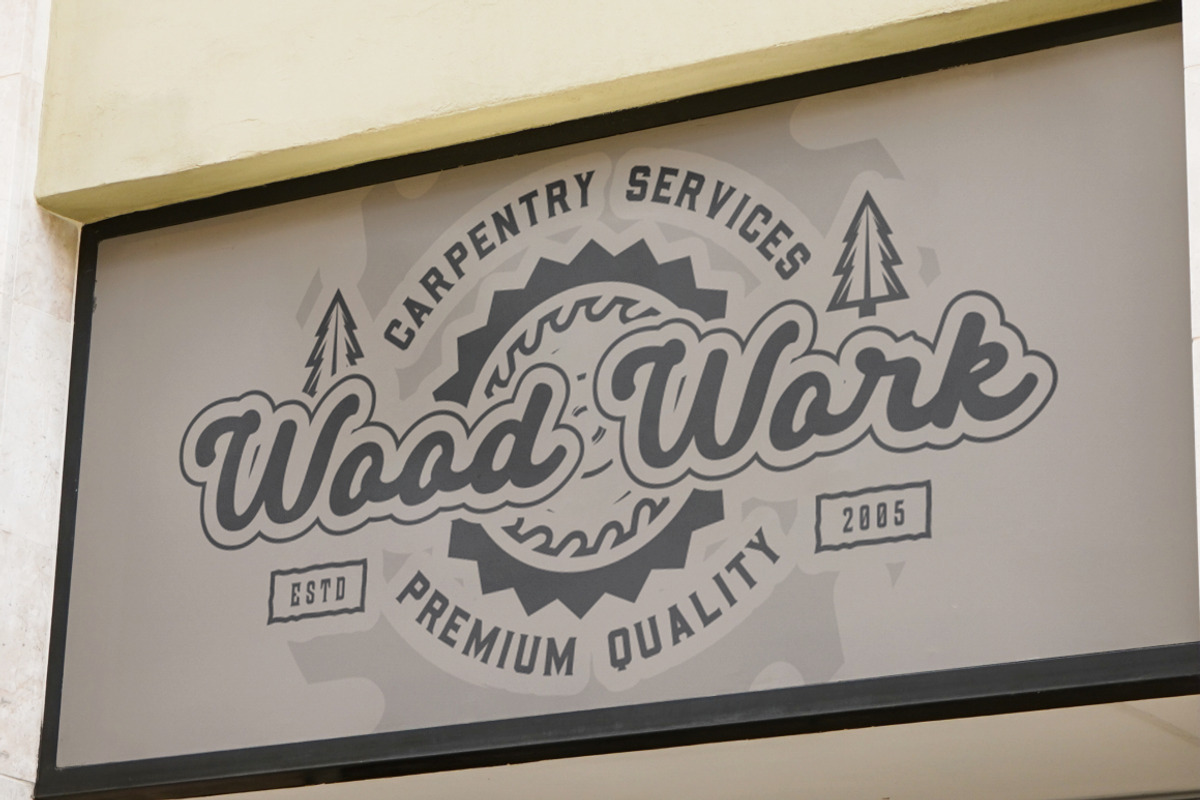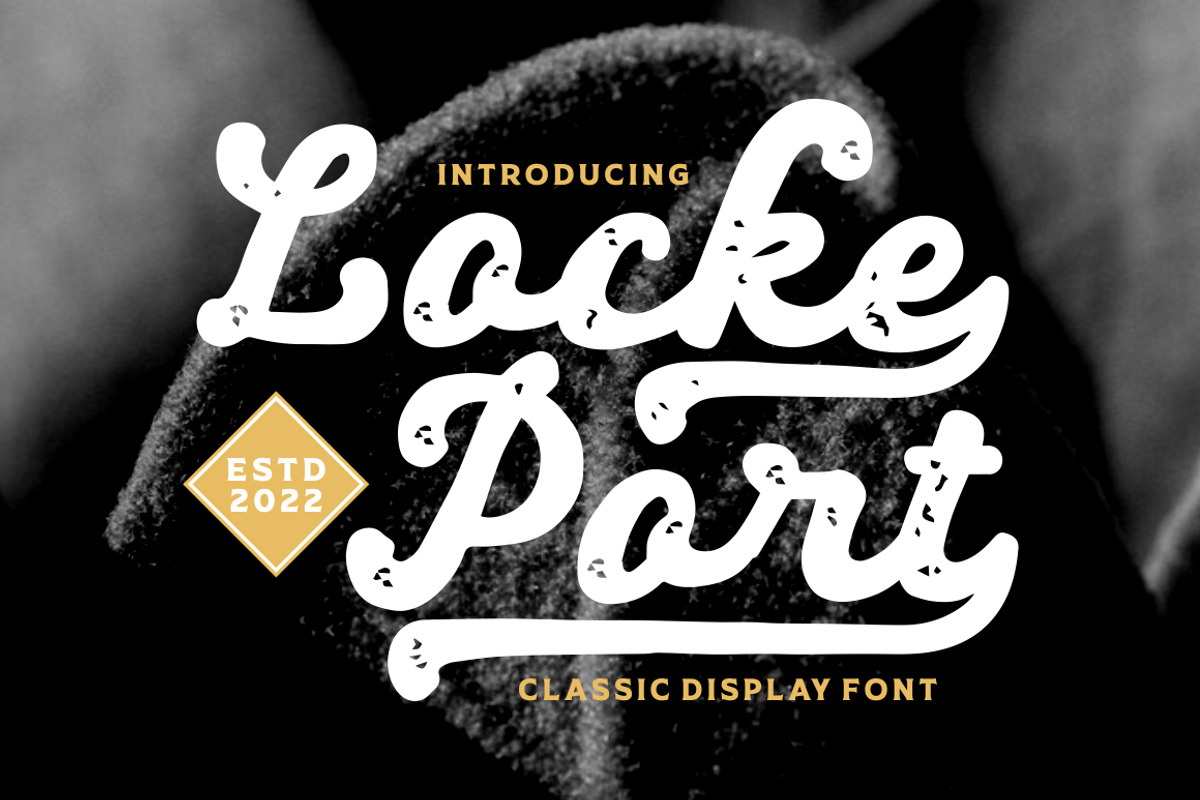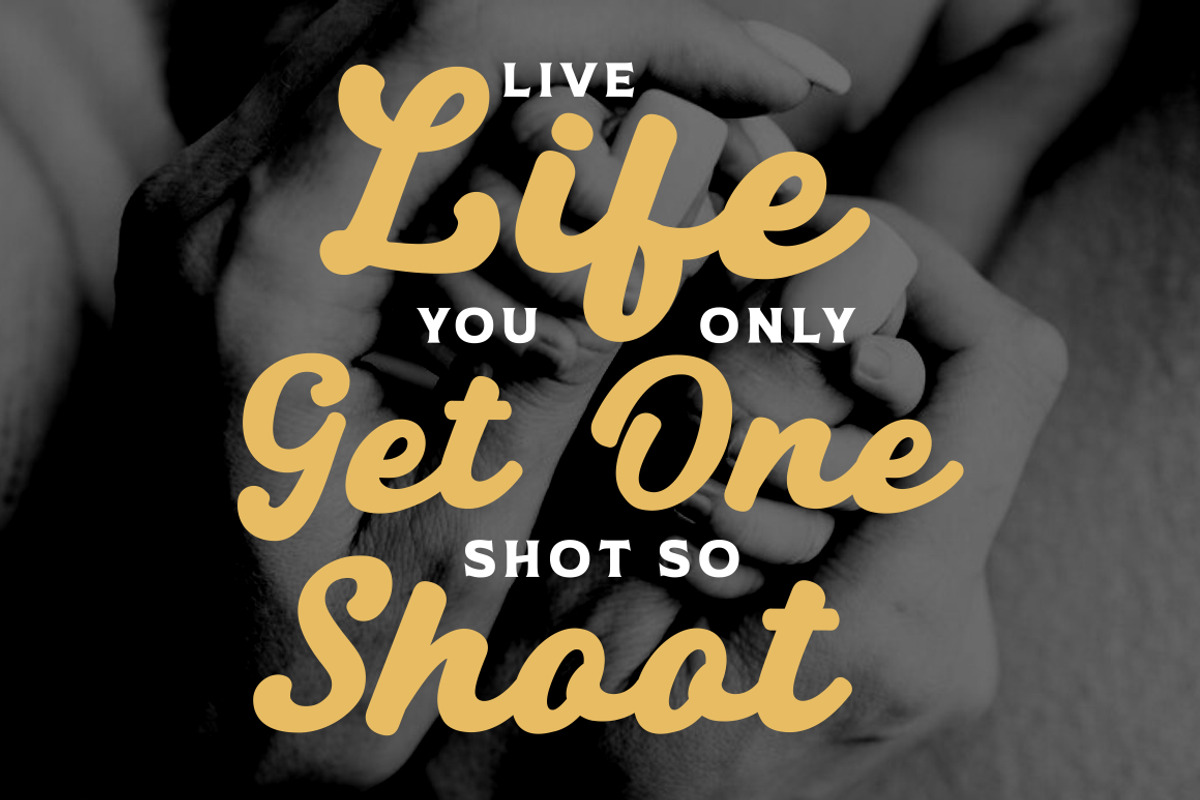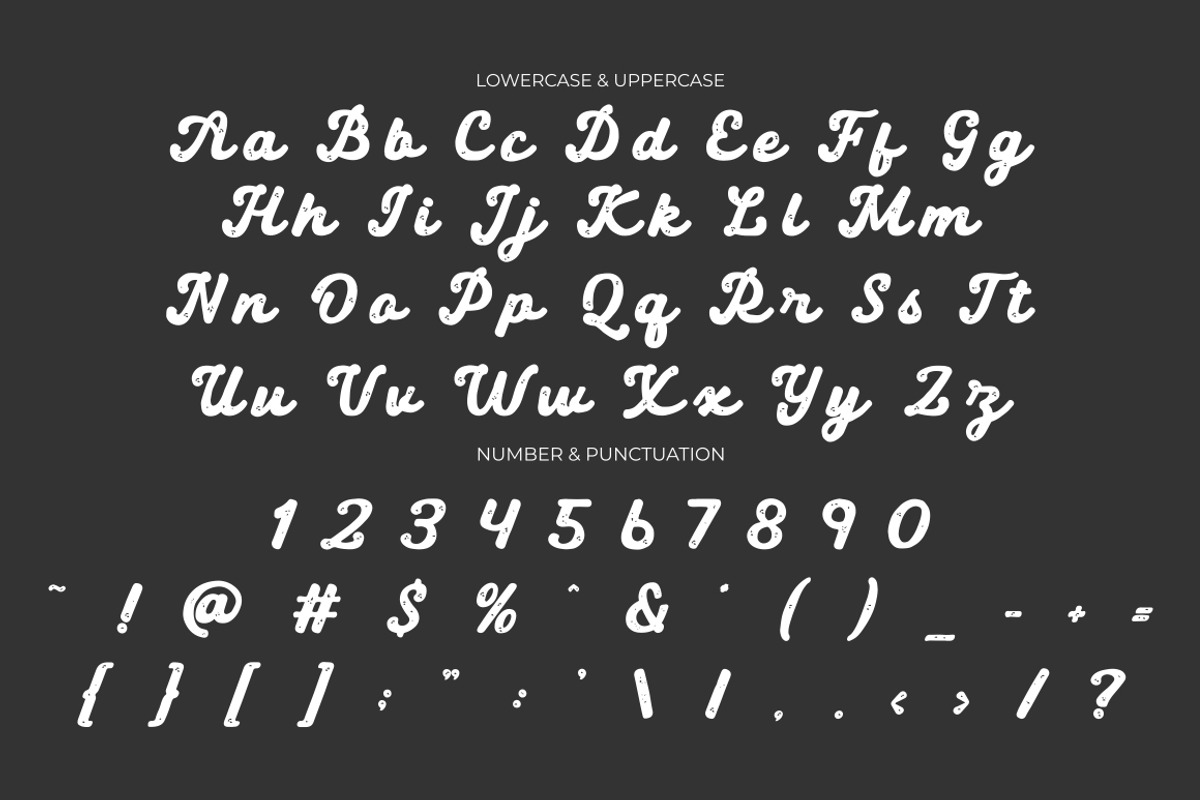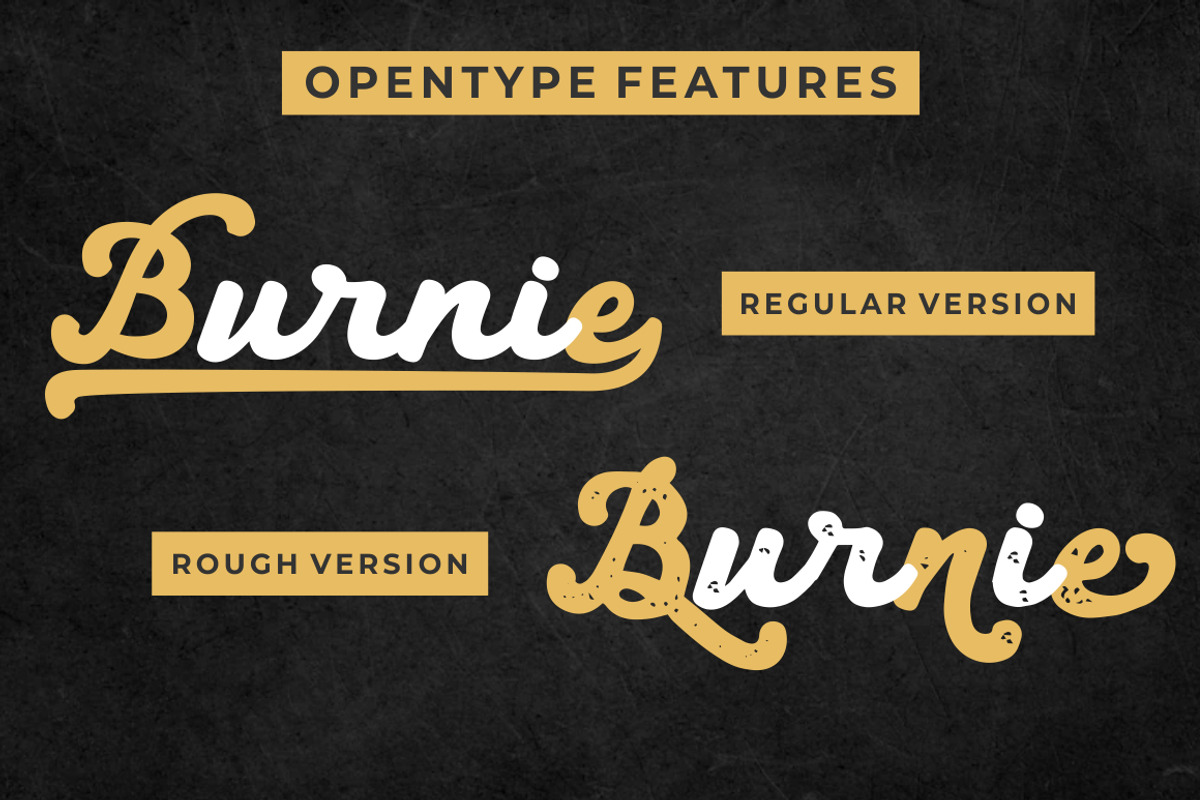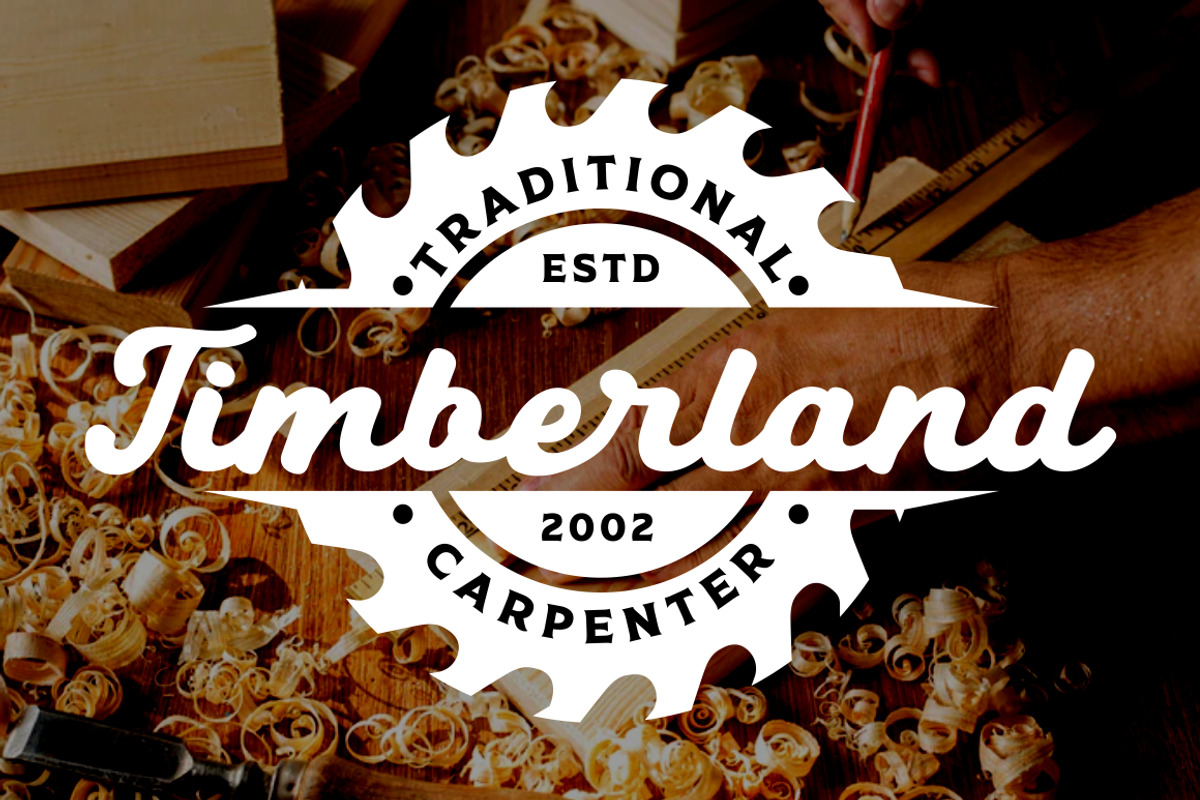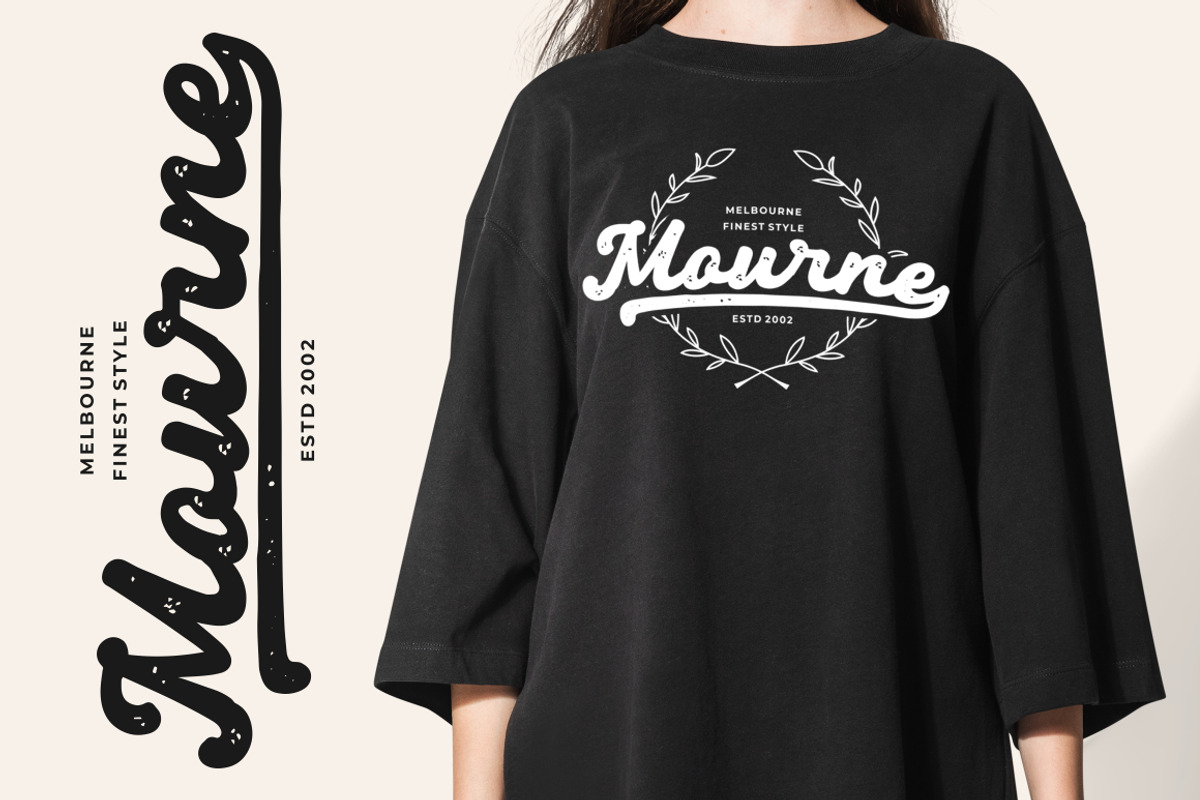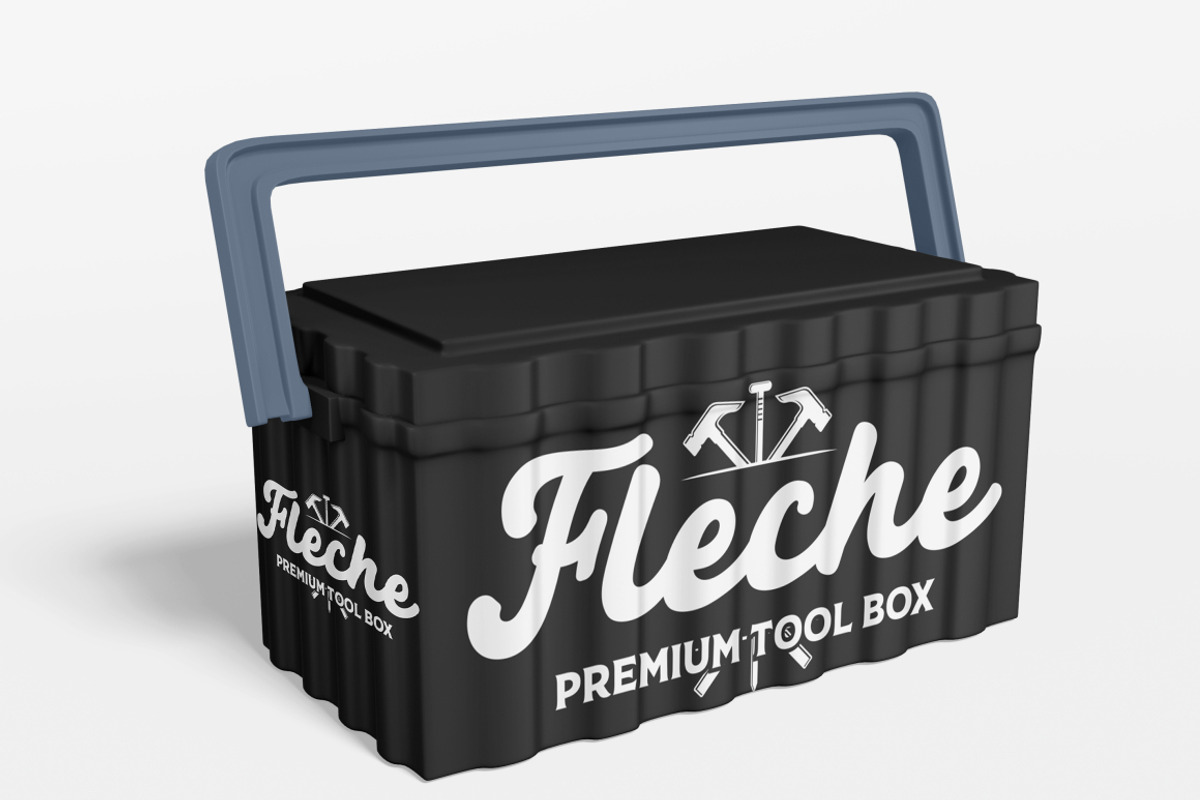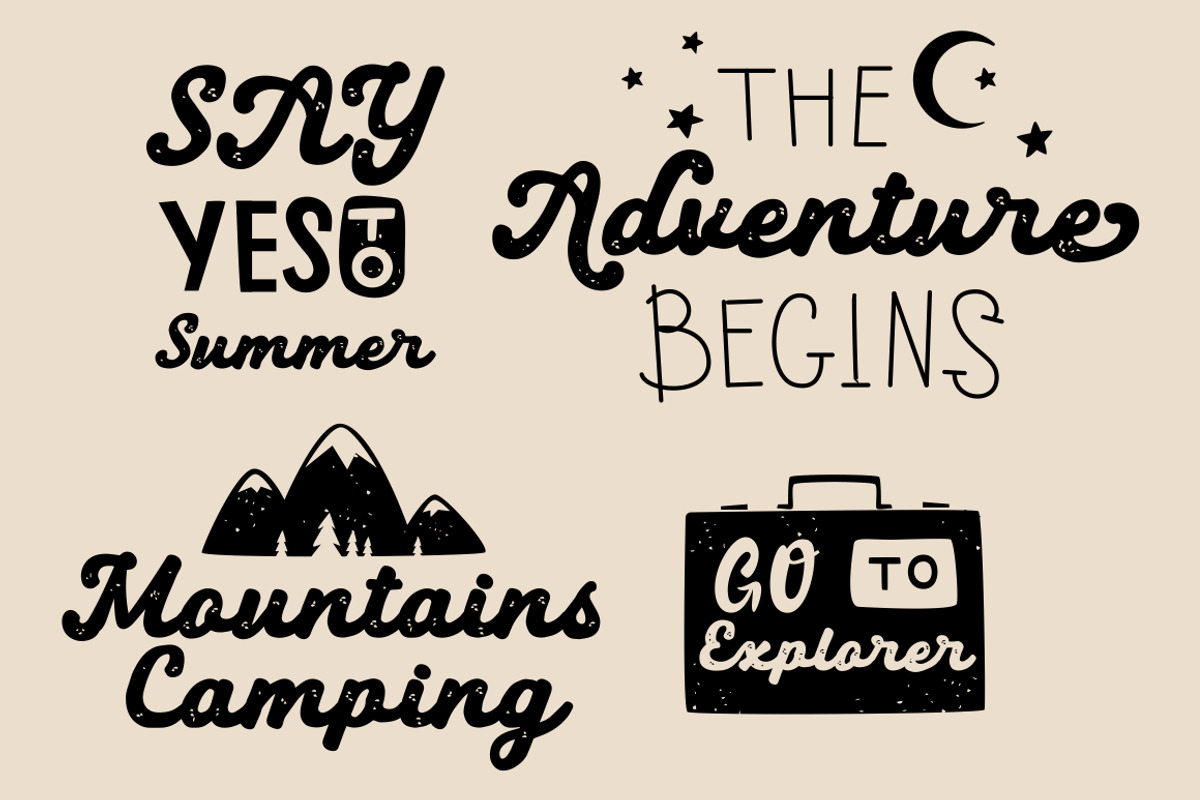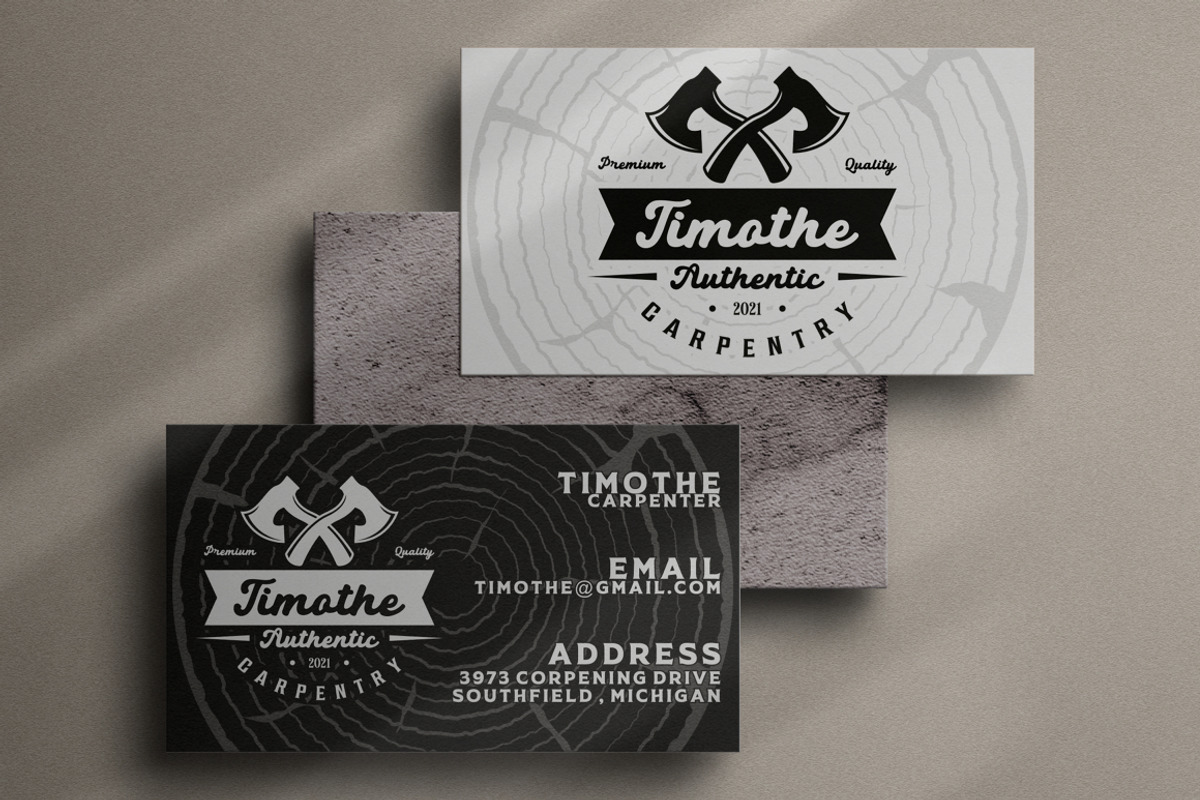
Locke Port - Modern Script Font
Locke Port - Modern Script Font is a captivating font with a modern yet classic script style. Its soft rounded edges and groovy appearance add a touch of elegance and sophistication to any design. This font is particularly well-suited for vintage-inspired projects, logos, emblems, badges, titles, posters, and more.
The script style of Locke Port combines the elements of modern typography with a timeless classic charm. Its soft rounded edges give the letters a smooth and graceful flow, creating a visually pleasing and harmonious look. The groovy vibes of this font add a touch of personality and flair, making it stand out in various design contexts.
Whether you're designing a vintage-themed poster, creating a logo or emblem for a classic brand, or adding a stylish touch to your titles, Locke Port - Modern Script Font offers a versatile and captivating choice that will enhance your design projects with its modern classic appeal.